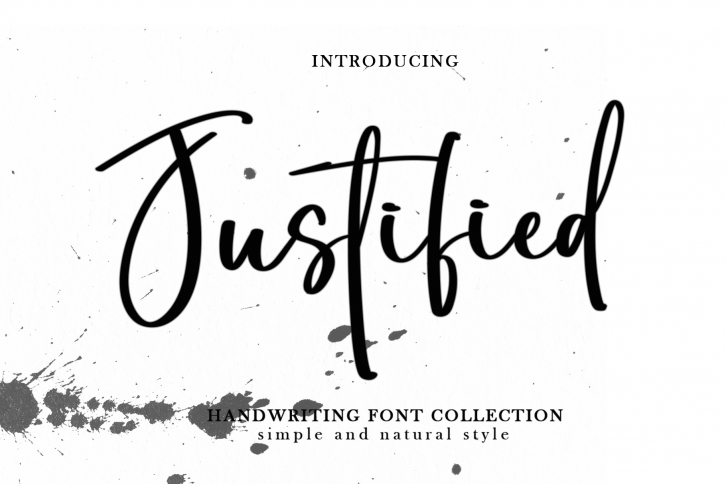
Justified is a stylish handwritten font with a contemporary atmosphere and impeccable form, inspired by timeless classic calligraphy. Balanced and varied, this font was designed to enhance the beauty of your projects.